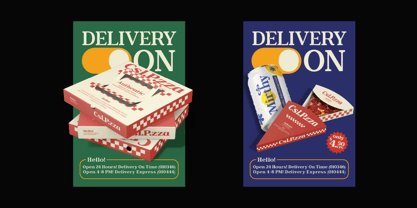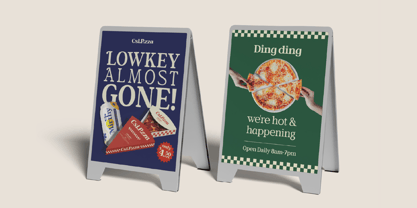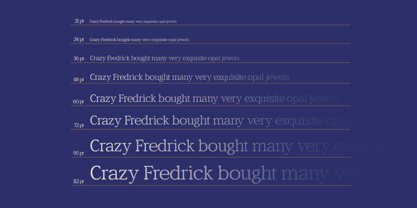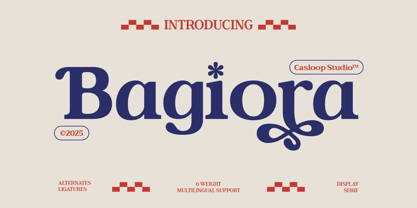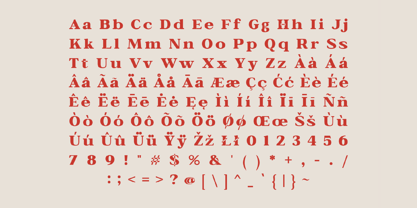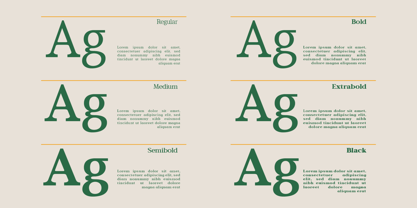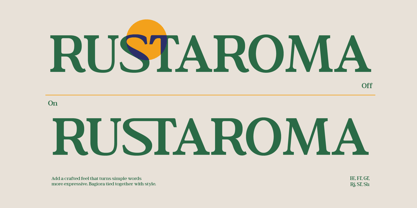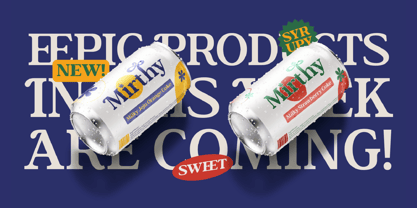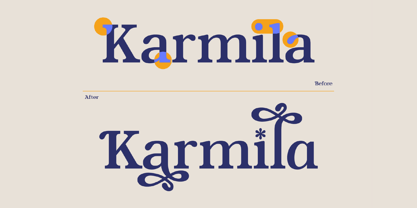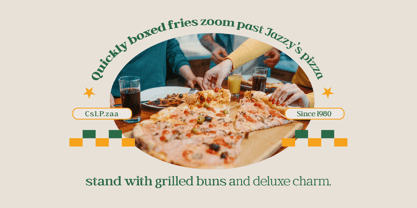
Bagiora
Die Schriftfamilie Bagiora wurde von Wantara Putra entworfen und von Casloop Studio veröffentlicht. Bagiora enthält 6 Stile und Familienpaketoptionen.
Bagiora is a bold yet soft display serif crafted for brands that want to look confident but feel approachable. Inspired by the warmth of foodie culture and the sophistication of editorial design, Bagiora pairs robust letterforms with smooth curves, making it equally at home on a global brand identity or a cozy café menu.
Its most charming features lie in its character “a” and “g” — rounded, friendly, and irresistibly playful. Activate Stylistic Set 01 (SS01) to transform a, n, and h into even more fun, whimsical shapes, perfect for food-related posters, lively packaging, or branding that wants a touch of sweetness without losing its bold presence.
With 6 weights from Regular to Black
Bagiora is ready for every platform — from global signage systems to animated web typography. It also supports Multilingual Extended Latin, making it a versatile choice for worldwide branding.
Personality:
“Bagiora” – a confident serif with foodie warmth and soft-bold presence
Feels like: artisanal bakeries, modern restaurants, boutique branding, creative editorial spreads, stylish global cafés
Best For:
Branding for food & beverage businesses
UI and web typography with a friendly premium feel
Global signage and packaging design
Editorial spreads and magazine layouts
Logo design and wordmarks with playful elegance
Animated text for campaigns & social media
From cozy menus to global billboards, Bagiora serves your words with style and warmth — giving every project the flavor of sophistication and the heart of playfulness.